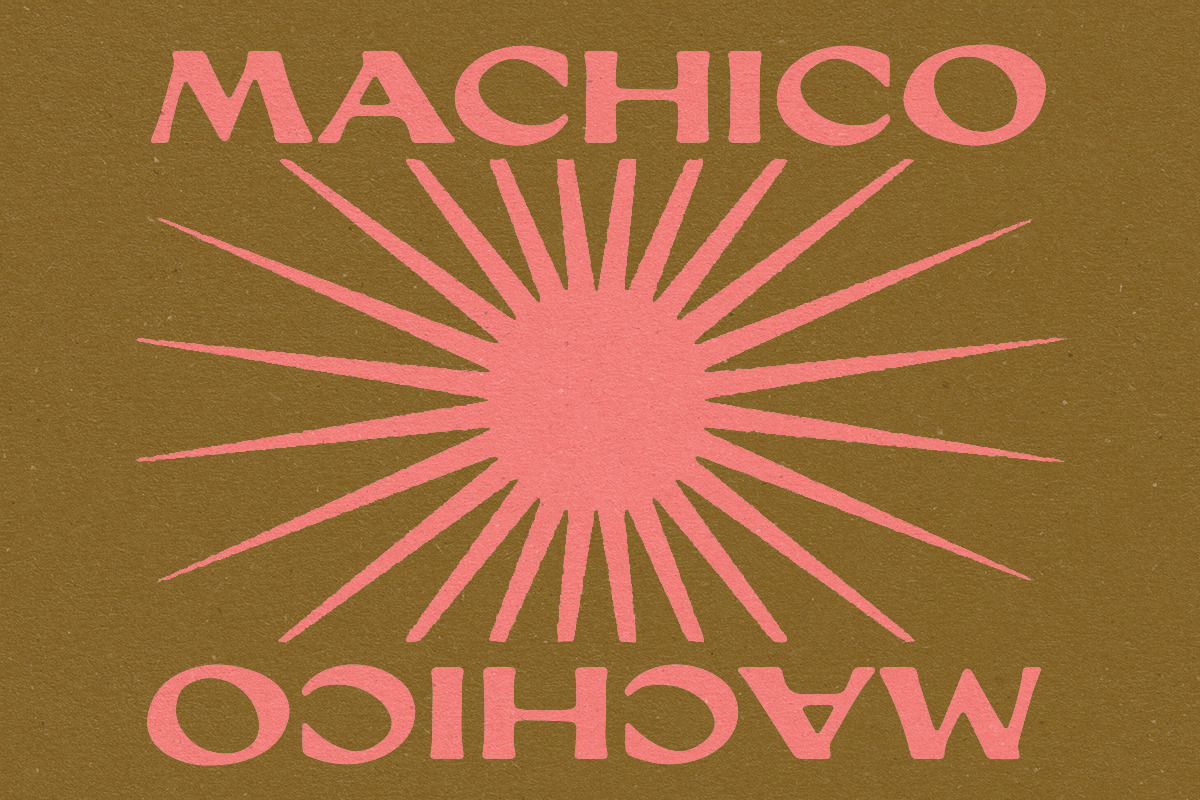
Machico Typeface
This font is inspired by vintage printed typefaces, it has nice square letters with a little serif and you can almost imagine it on some old official documents hidden away in a file in the town hall of some remote town in Portugal. Making this one, I imagined that the soft edges, the bleed and the imperfections were a result of the mechanical process of the printing press that had already printed a million letters and had worn away a little.